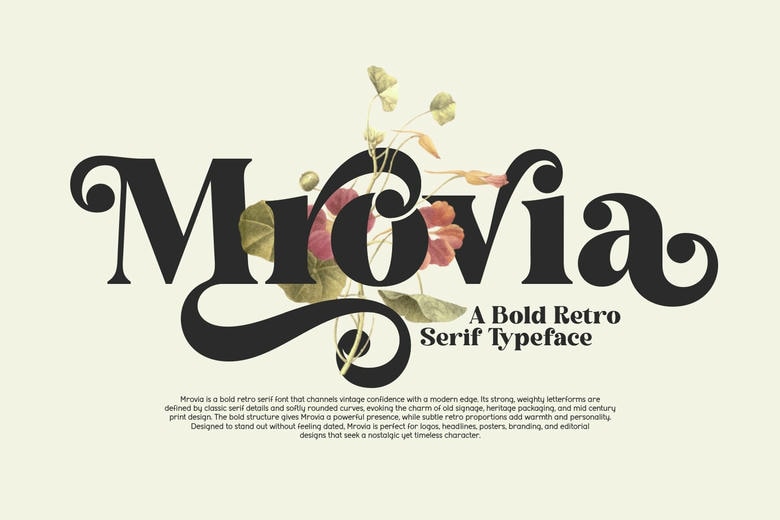
Mrovia Font
Mrovia is a confident retro serif typeface with the cool vintage flavor and modern self-confidence. Drawing its influence on the traditional signage and mid-century typography, Mrovia is characterised by heavy weight, beautiful curves and unique serif details, which attract the eye at first sight.
Mrovia looks like a strong visual with a warm and nostalgic feel, without seeming any older than intended. The bold letterforms and flowing nature are what make it ideal in logos, headlines, posters, branding, packaging, editorial layouts and display designs that require a classic but communicative appearance. Souls of retro branding or modern design, Mrovia brings personality, confidence, and style to each project.
Mrovia Serif Font